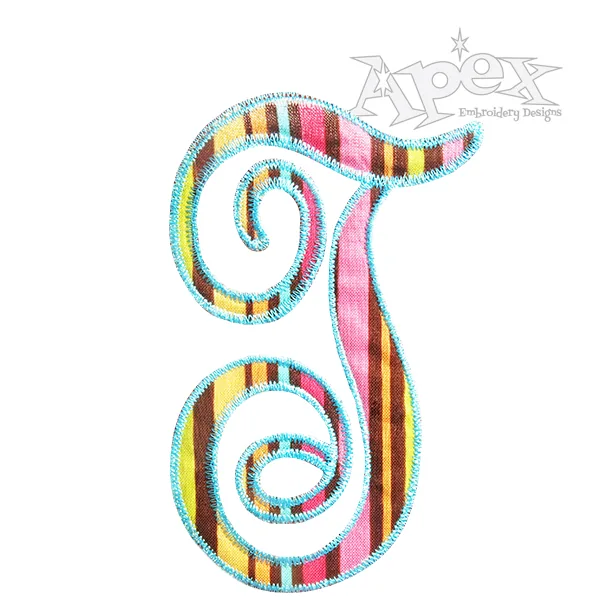
Script Applique Embroidery Font
There is an undeniable grandeur in seeing classic cursive rendered at a monumental scale. When digitizing the Script Applique Embroidery Font, our studio vision was to translate the fluid grace of hand-drawn calligraphy into a medium that celebrates the tactile beauty of fabric. While traditional embroidery script often condenses into dense thread paths, widening these letterforms into generous applique channels transforms every initial into a dynamic canvas. Each curve welcomes complementary prints, linen textures, and playful seersuckers directly into the typography. Whether you choose the gleaming precision of our classic satin stitch border or the relaxed, vintage charm of the zigzag edge, this alphabet turns custom monogramming into a bespoke work of textile art.
This font collection is tailored for bold, large-scale presence, providing two distinct stitching styles across four substantial embroidery hoop sizes:
- Dual Stitch Finishes: Includes both a refined Satin Stitch Applique for polished elegance and an airy Zigzag Stitch Applique for a casual, heirloom finish.
- 4-Inch (approx. 100mm): Ideal for tote pockets, children's outerwear, and accent pillow corners.
- 6-Inch (approx. 150mm): A versatile mid-range scale for youth sweatshirts and blanket monograms.
- 8-Inch (approx. 200mm): Perfect for dramatic center-chest placement and nursery room wall pennants.
- 10-Inch (approx. 250mm): Exceptional for statement quilt centers, oversized tote bags, and luxury jacket backs.
Project Ideas for Script Applique Embroidery Font
The sweeping contours and open applique fields make this typography a natural fit for distinctive, personalized gifting and statement home textiles:
- Collegiate & Vintage Apparel: Pair the zigzag finish with heathered fleece to craft vintage-inspired collegiate crewnecks, oversized varsity hoodies, or weekend pullovers.
- Heirloom Nursery Linens: Frame floral quilting cotton or pastel gingham inside a satin-stitched single initial on heirloom baby quilts, stroller blankets, and pillow shams.
- Resort & Coastal Canvas Totes: Stitch bold resort initials onto heavy cotton duck canvas bags using nautical stripes or vibrant Madras plaids for personalized summer gifting.
- Holiday Keepsakes: Use plush velvet or festive tartan fabric cutouts for dramatic, high-contrast family initials across linen tree skirts and fireside stockings.
- Bridal & Robe Statements: Embellish the backs of denim bridal jackets or oversized flannel getting-ready shirts for memorable wedding party keepsakes.
Due to the grandeur and flowing nature of these applique letterforms, intentional placement ensures optimal drape and visual impact:
- Center Chest: Position single initials directly across the heart or centered on sweatshirts, anchoring the design 3 to 4 inches below the neckline collar.
- Quilt Centerpieces: Use the 8-inch or 10-inch letters dead-center in quilt blocks or medallion spreads where the applique fabric can echo bordering print fabrics.
- Diagonal Corner Layouts: For linen throws, picnic blankets, and oversized cushions, set the letter at an angle across a single corner to let the flourishing ascenders and descenders flow naturally with the fabric drape.
- Full Jacket Backs: Center the largest 10-inch scale directly between the shoulder blades for a striking, runway-ready streetwear aesthetic.
Script Applique Embroidery Font Craft & Letterform Details
Designing applique script requires a deep understanding of textile tension, curve physics, and visual balance. Rather than merely expanding standard script vectors, each letter in this collection was hand-digitized from the ground up to ensure seamless applique execution. The contouring paths feature optimized placement lines that outline the shape cleanly, followed by deliberate tack-down stitching calibrated to secure your fabric cutouts flat against the ground material without puckering.
The satin applique version features generous stitch width and feathered interior corner densities, guaranteeing complete, seamless coverage over raw fabric edges. In contrast, the zigzag finish offers a looser, rhythmic stitch cadence that evokes breezy, retro craftsmanship while maintaining clean structural integrity around tight turns and sweeping loop intersections. The connecting strokes and expressive swashes glide effortlessly into rounded terminals, providing a graceful calligraphy profile that honors the maker's eye for heirloom detail.